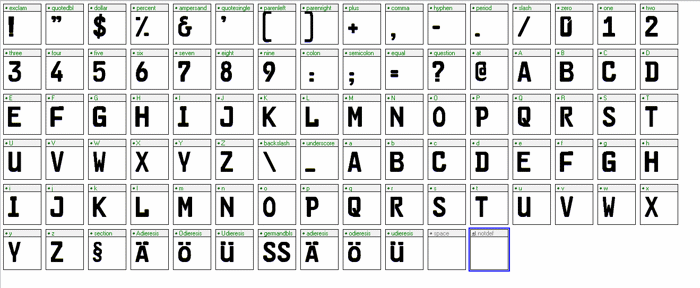
CAR-GO Font
I rebuilt the font and made two versions. One with the characteristic number plate frame around it - put parentheses around your sample to see the effect - and one just plain.